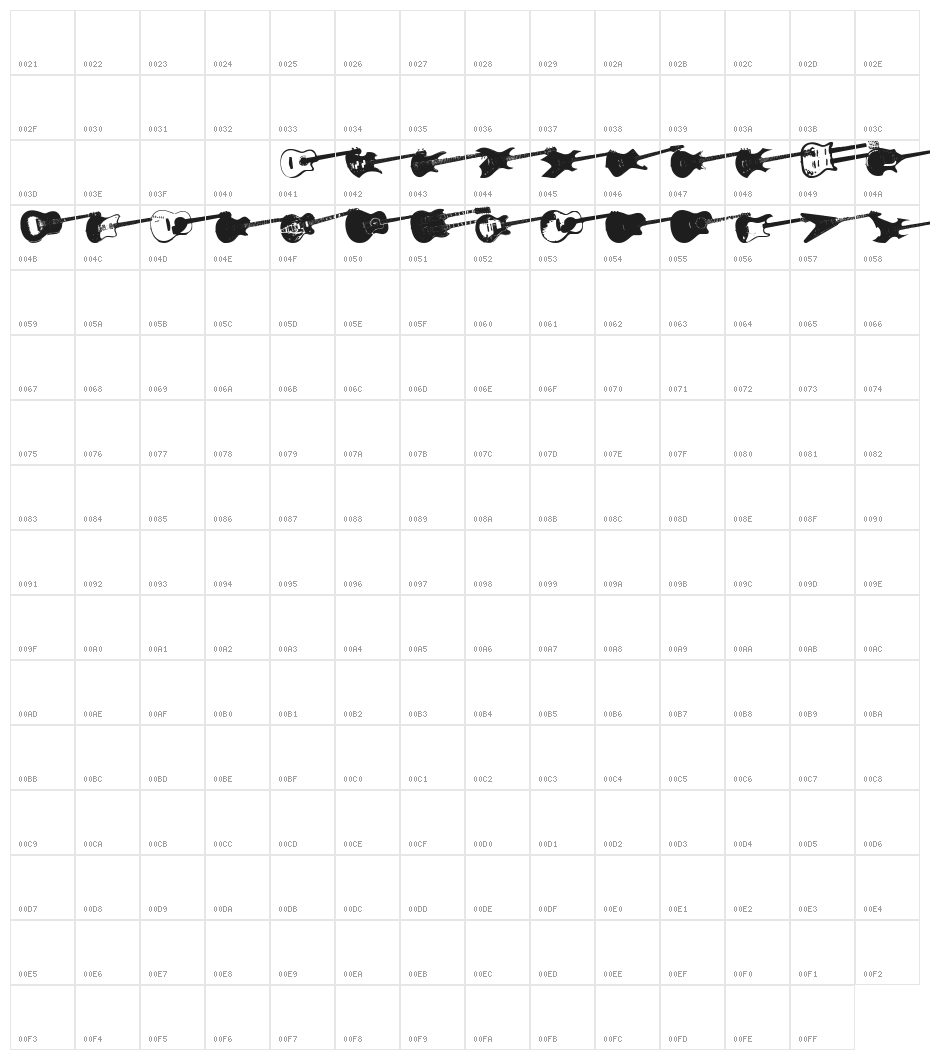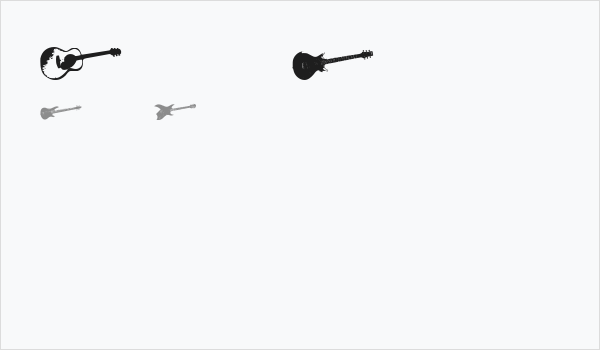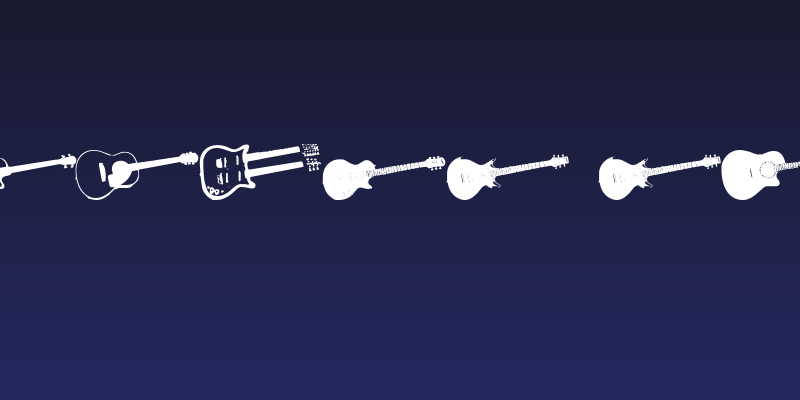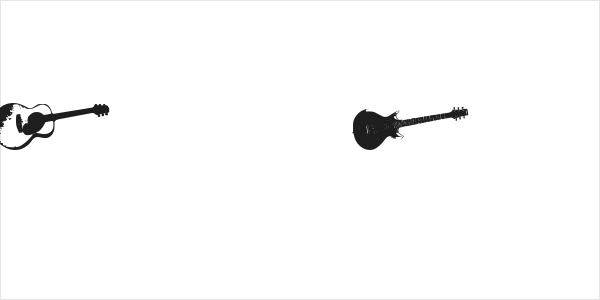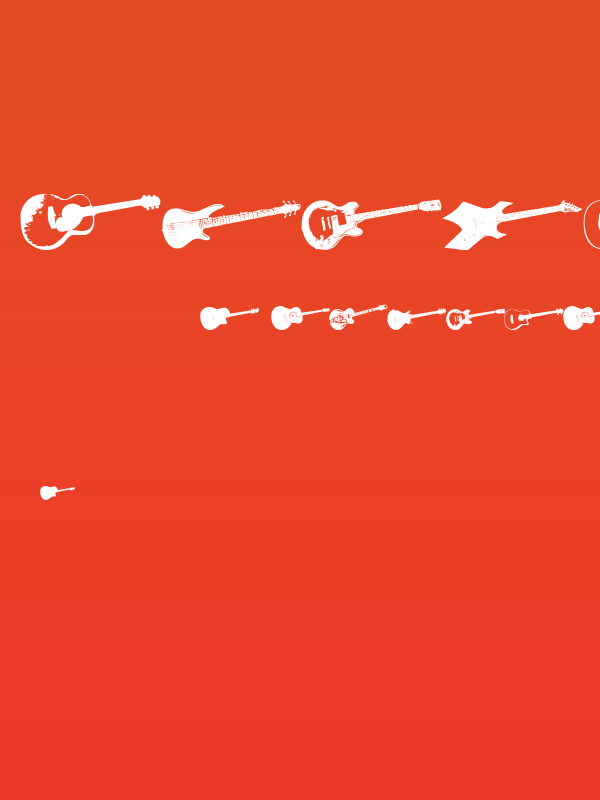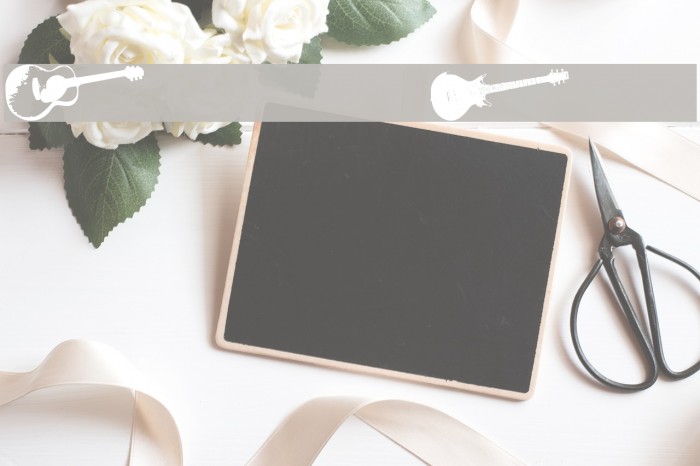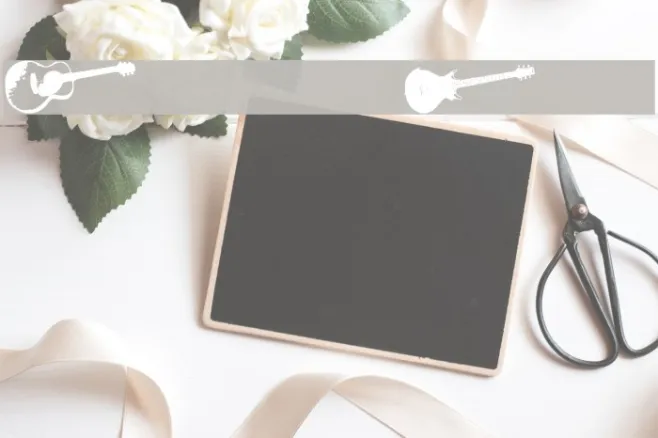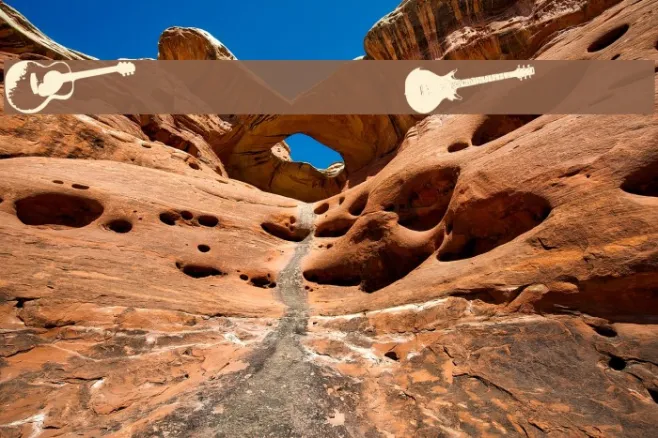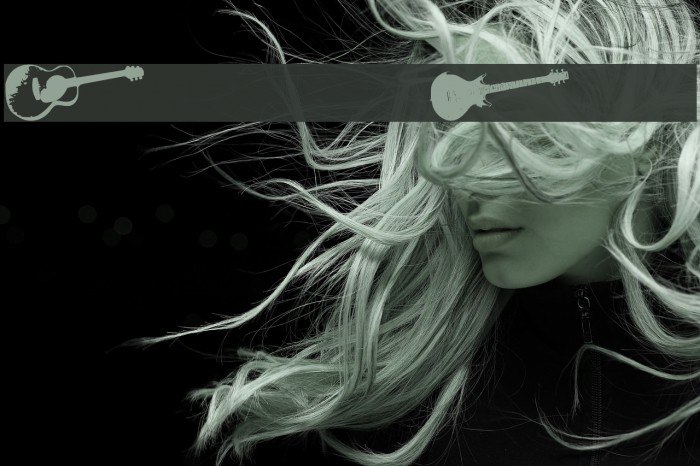
Screaming Guitar Font
Screaming Guitar Description
This decorative font features a series of guitar illustrations, each representing a different character. The design is playful and music-themed, with each letter and number crafted to resemble various styles of guitars, from electric to acoustic. The intricate details in the guitar shapes add a unique flair, making it ideal for projects that require a musical or artistic touch. The font is not suitable for body text due to its illustrative nature but works well for creative headings and thematic designs.
| Use Case | Logos, Headlines |
| Proposed Projects | Ideal for music event posters, band logos, album covers, and artistic projects that require a musical theme. |